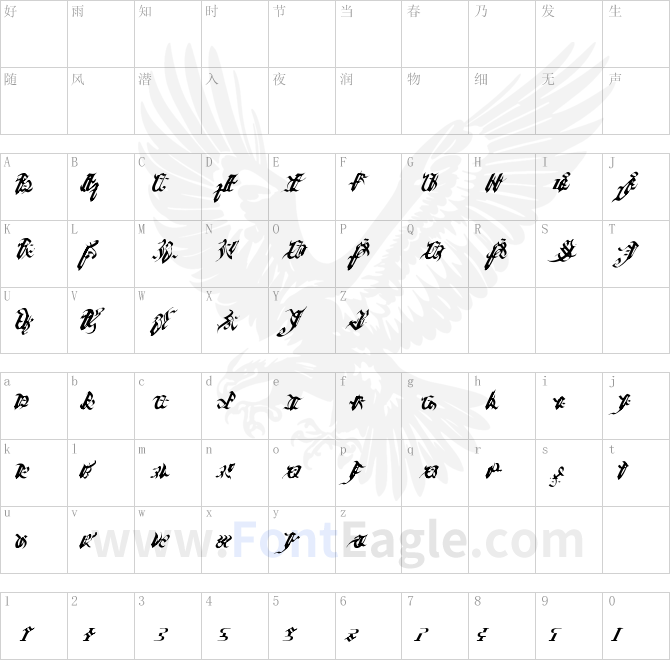
- Font name:Ivalician Gothic
- Font Subfamily ID:1.000;pyrs;ivaliciangothic
- Font Full Name:Ivalician GothicRegular
- Postscript:ivaliciangothic
- Font Copyright:created by el Hechicero (http://www.ff-omeganebula.com) – original design from Square-Enix ( A-z, 0-9 only)